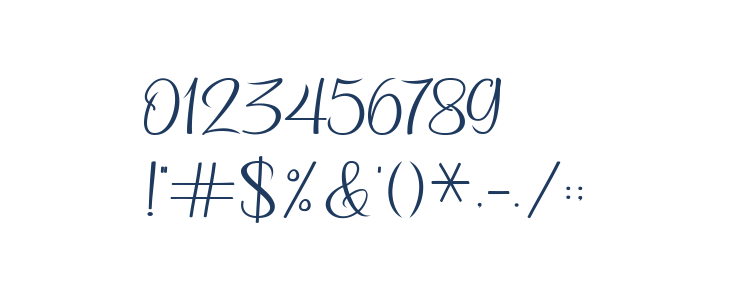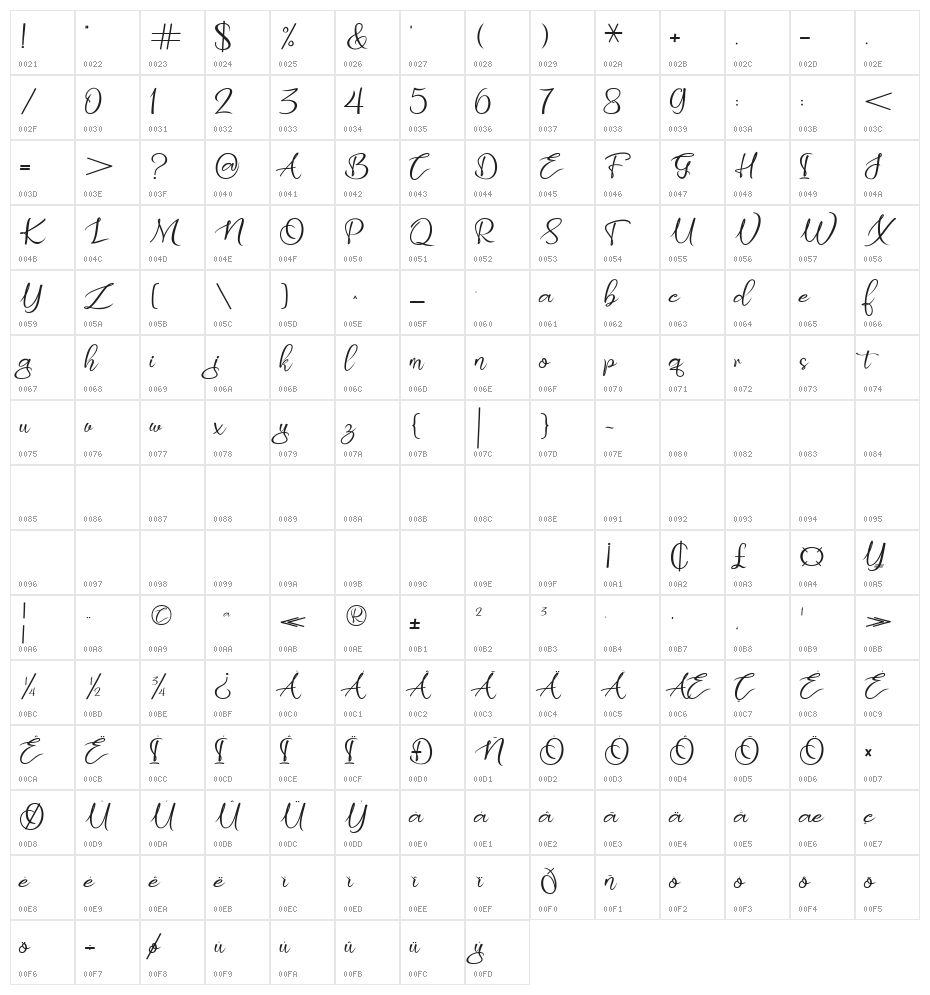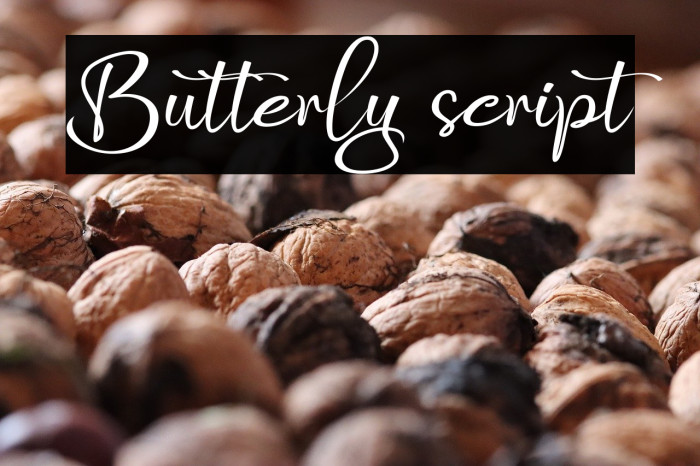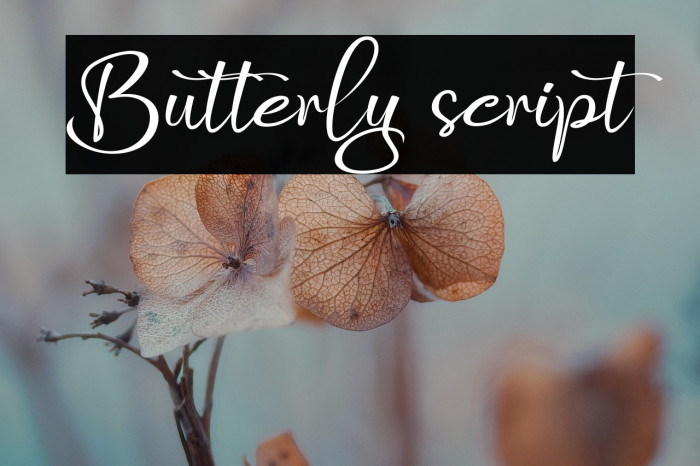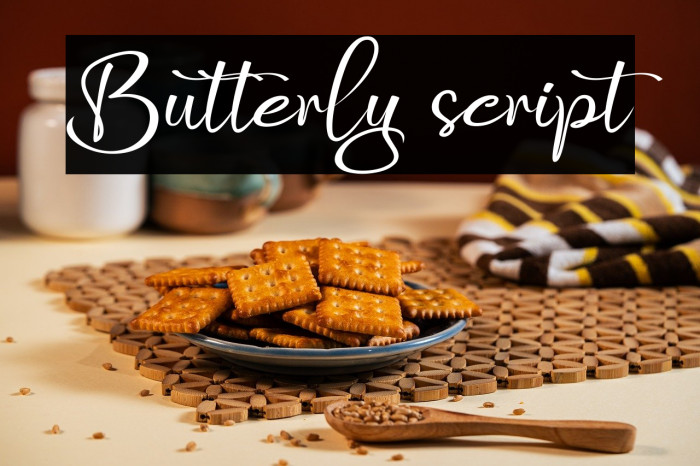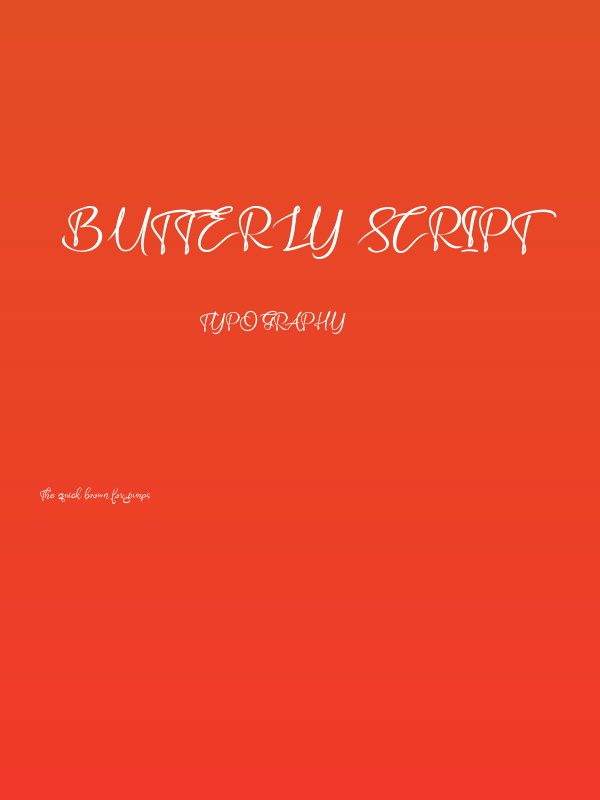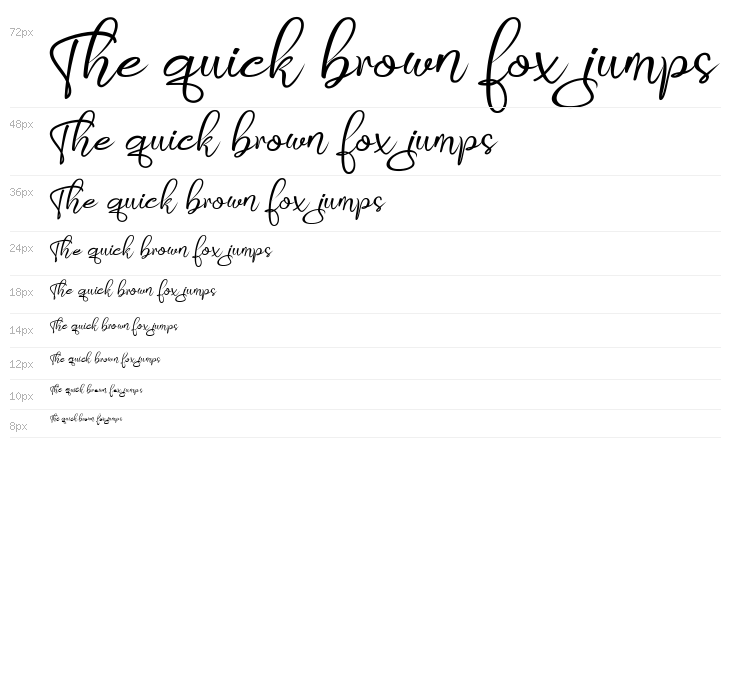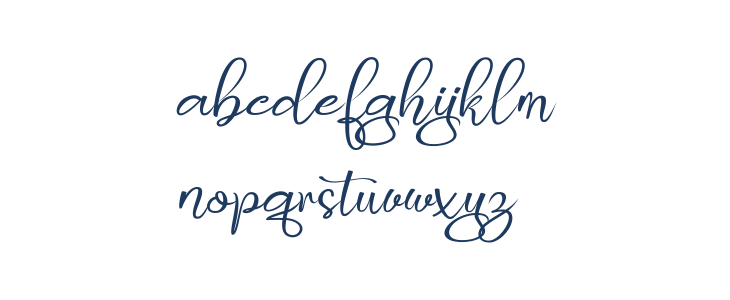
Butterly script Font
Butterly script Description
This elegant script font features fluid, cursive strokes that convey a sense of sophistication and grace. The uppercase letters are characterized by sweeping curves and loops, while the lowercase letters maintain a consistent flow with delicate connections. The numerals are stylish and maintain the script's overall aesthetic, making them suitable for decorative purposes. Special characters are thoughtfully designed to complement the script's ornate style. This font's intricate details and smooth transitions make it ideal for projects that require a touch of elegance and refinement.
| Overall Style | Elegant, Decorative |
| Use Case | Logos, Invitations, Decorative text |
| Proposed Projects | Wedding invitations, luxury branding, elegant packaging, greeting cards, and decorative signage. |